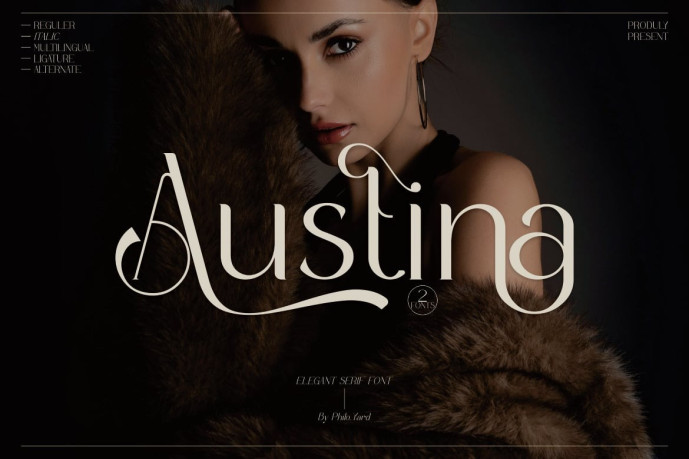
Austina – Elegant Serif Font
Designer: Philo_Yard
**Austina – Elegant Serif Font ** is a typeface that comes in a variety of styles, featuring high contrast, sharp details, and classic charm. This typeface can be easily adapted for a variety of creative projects. It provides an elegant and professional look for any project.
Can be used for:
Branding & visual identity
Product packaging & labels
Invitations & stationery
Posters, flyers & marketing materials
Projects that require an elegant and prestigious touch